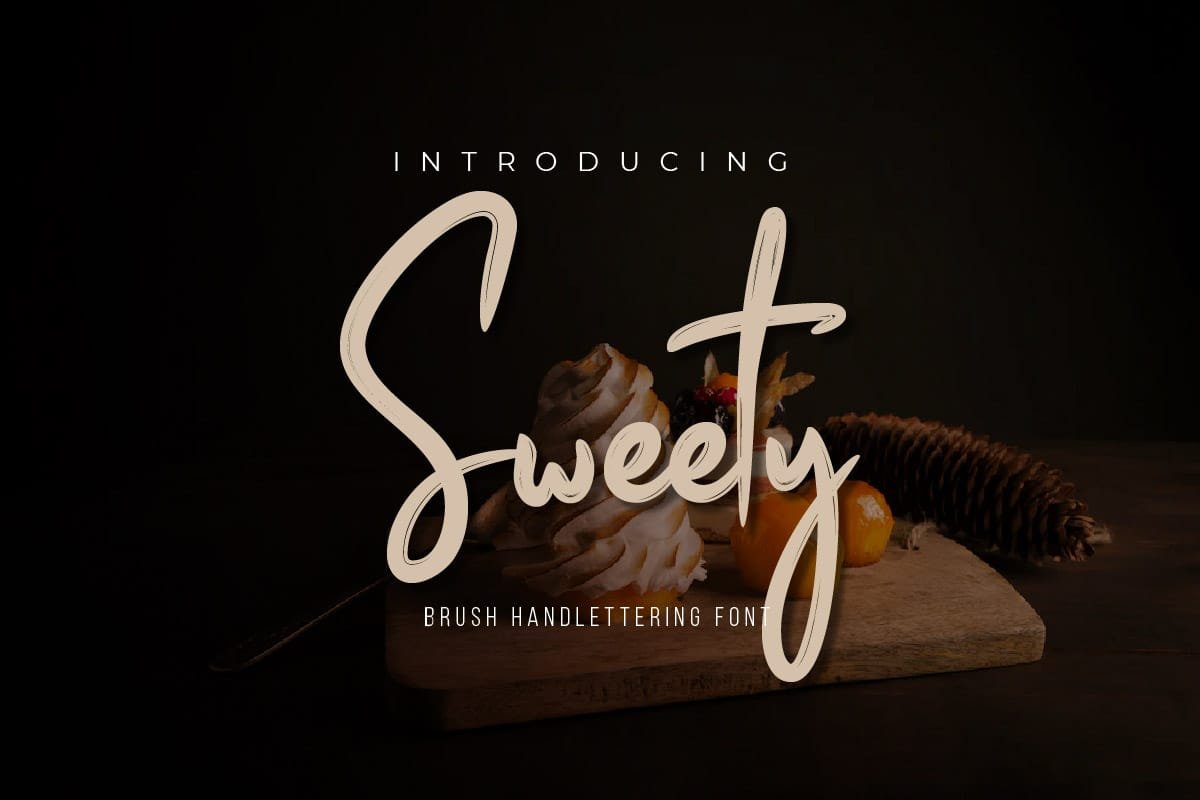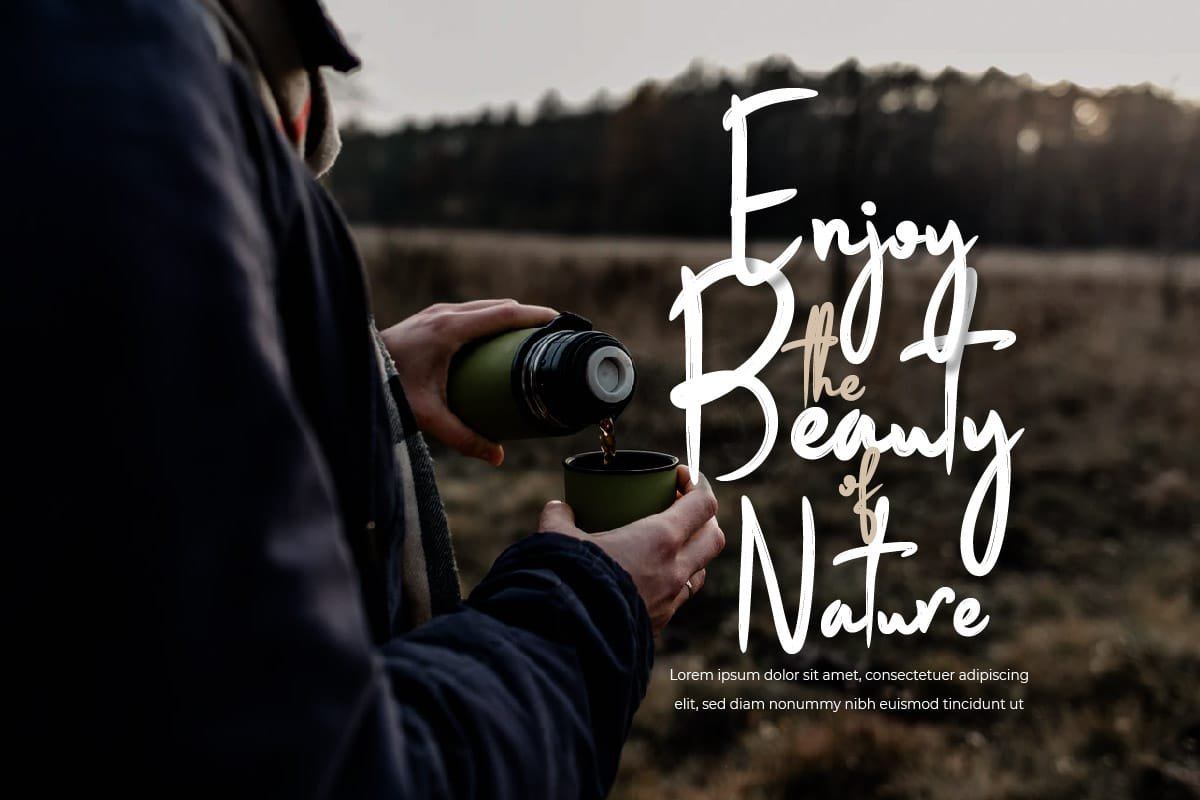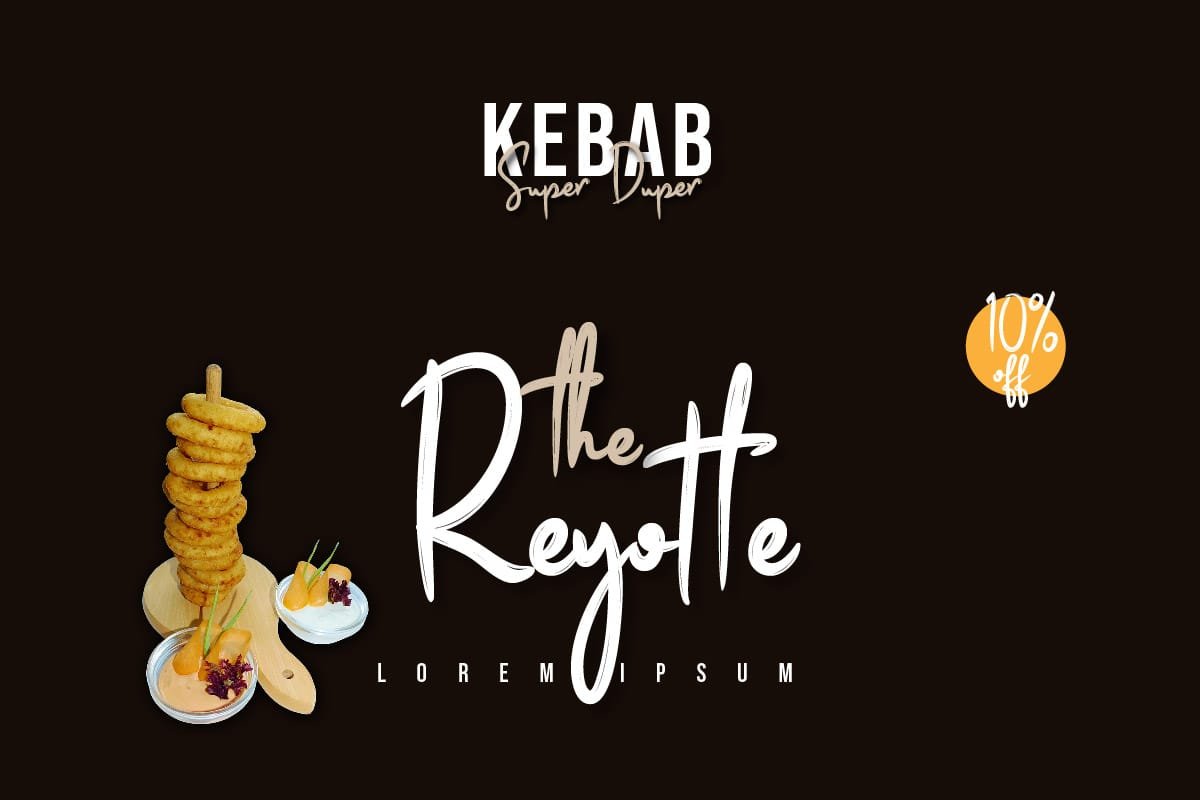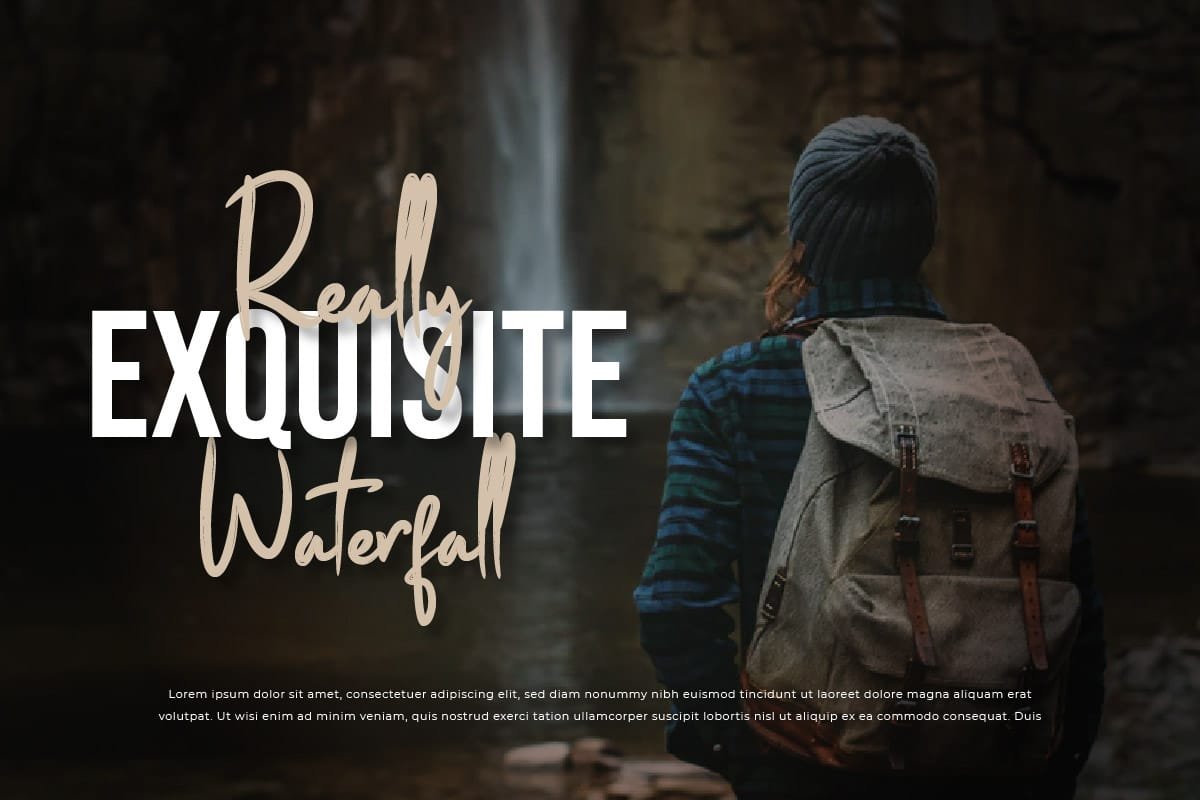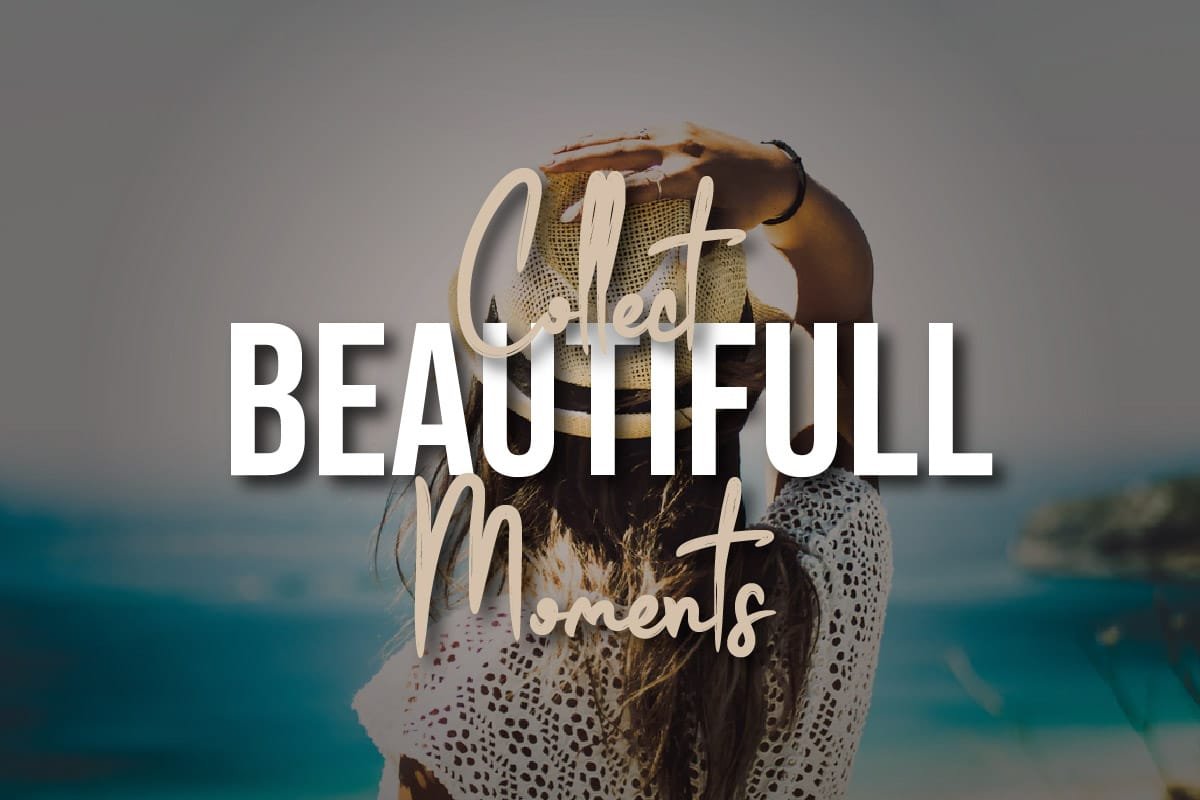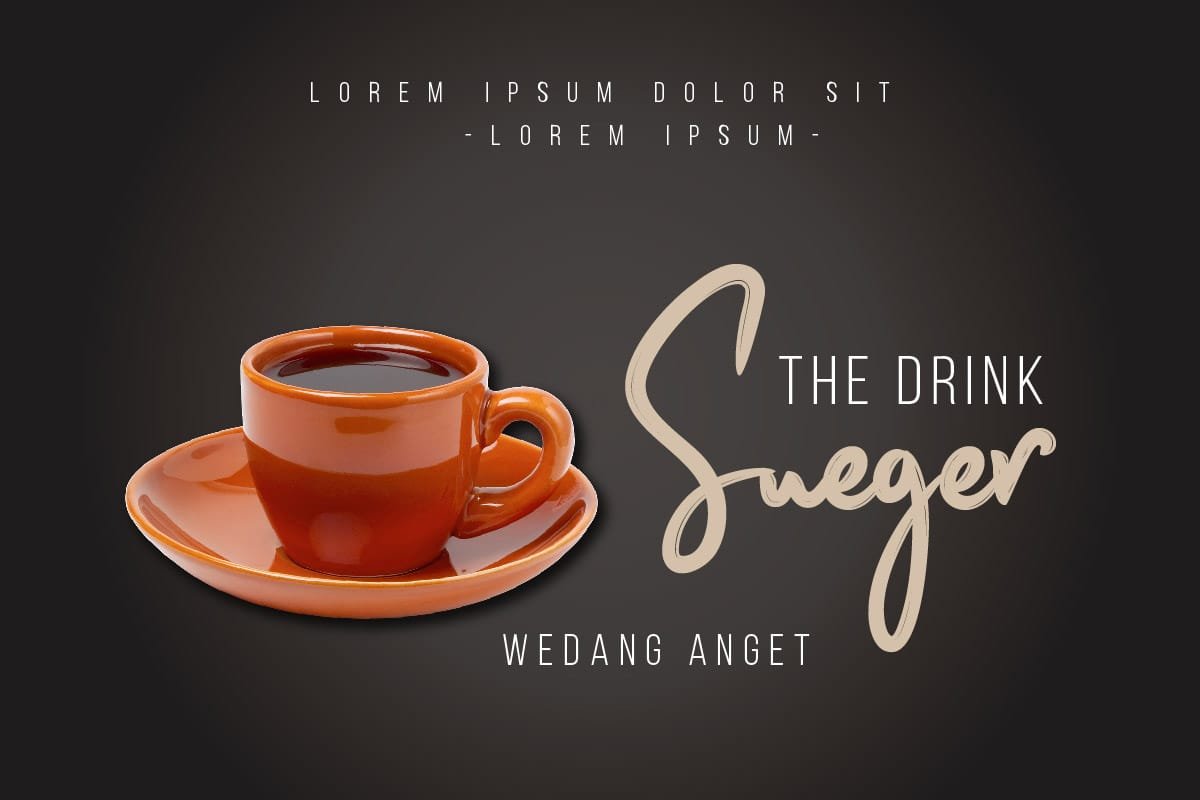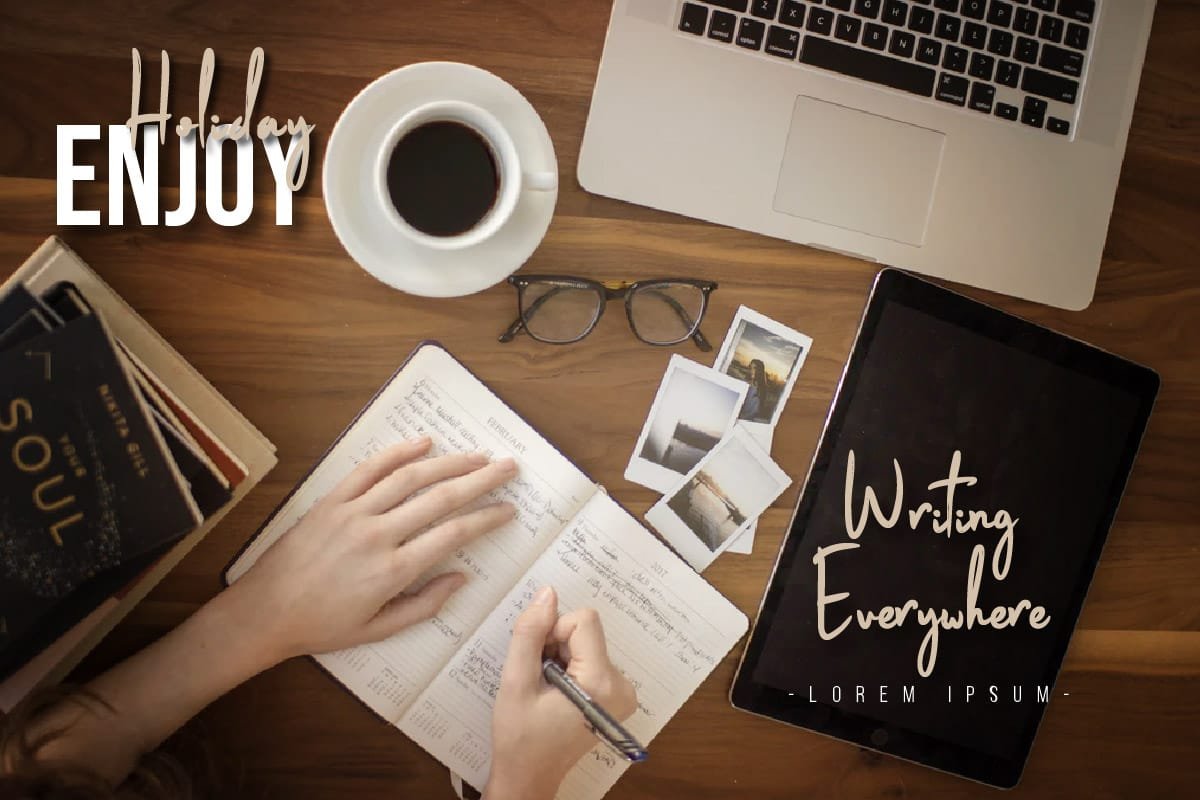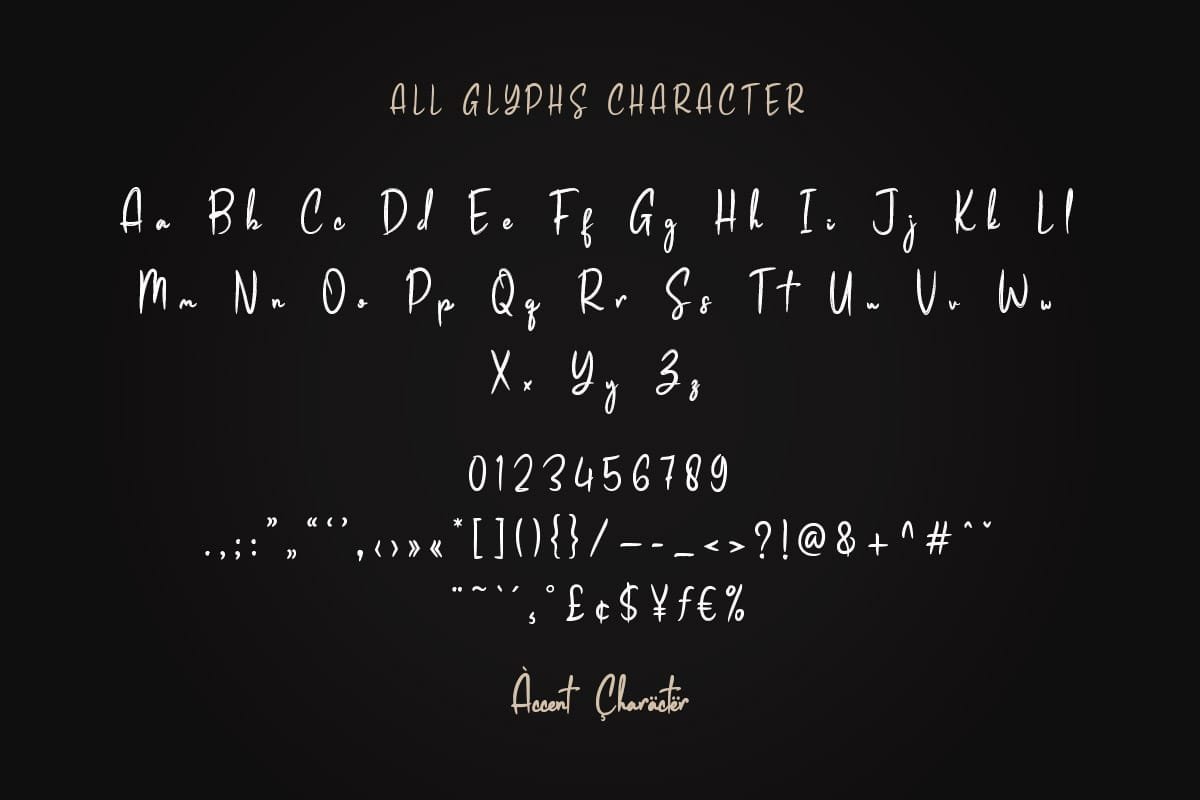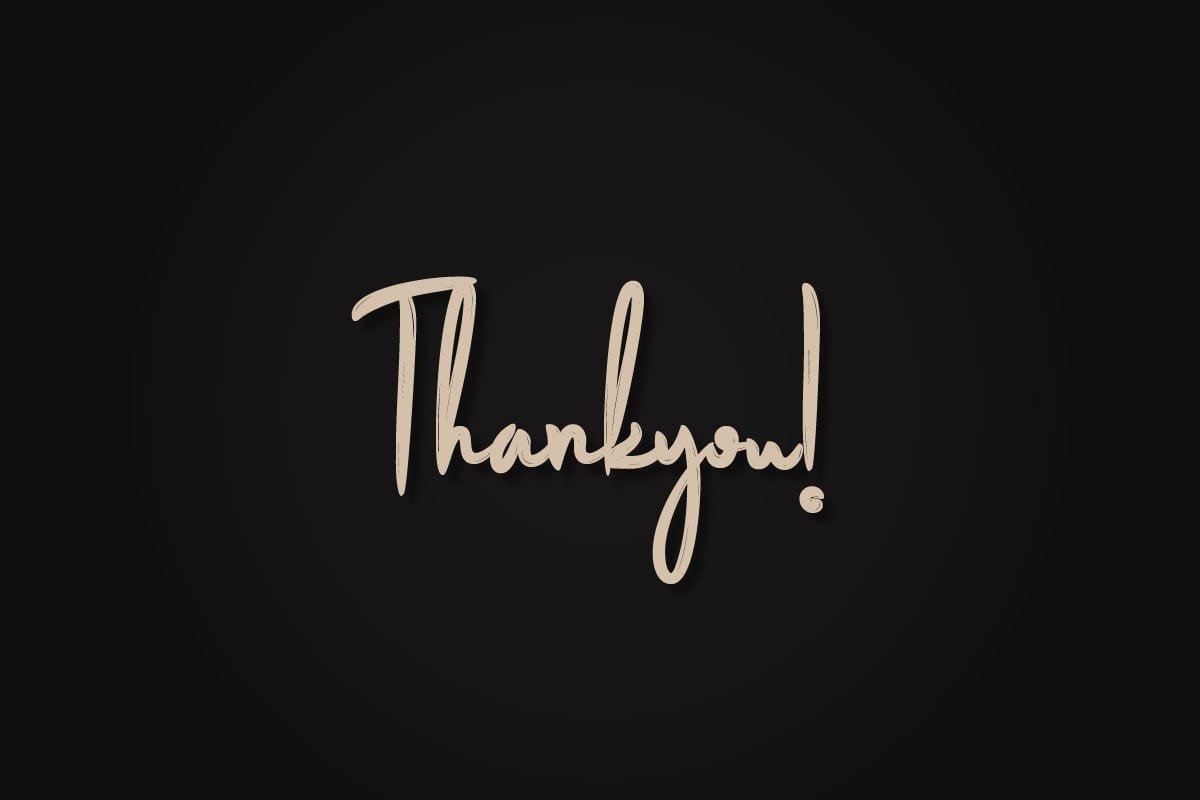
Satisfy your sweet tooth with Sweety – Brush Handwritten Font, the font that’s as delightful as your favorite dessert. With its charming swirls and sugary charm, Sweety brings a sense of joy and playfulness to every project. Perfect for designing whimsical greeting cards, mouthwatering food packaging, or adorable social media graphics, Sweety adds a sprinkle of happiness to your designs. With Sweety, every design becomes a treat for the eyes, spreading smiles and sweetness wherever it goes. Get ready to indulge your creativity and satisfy your cravings with Sweety – the font that’s as irresistible as candy!